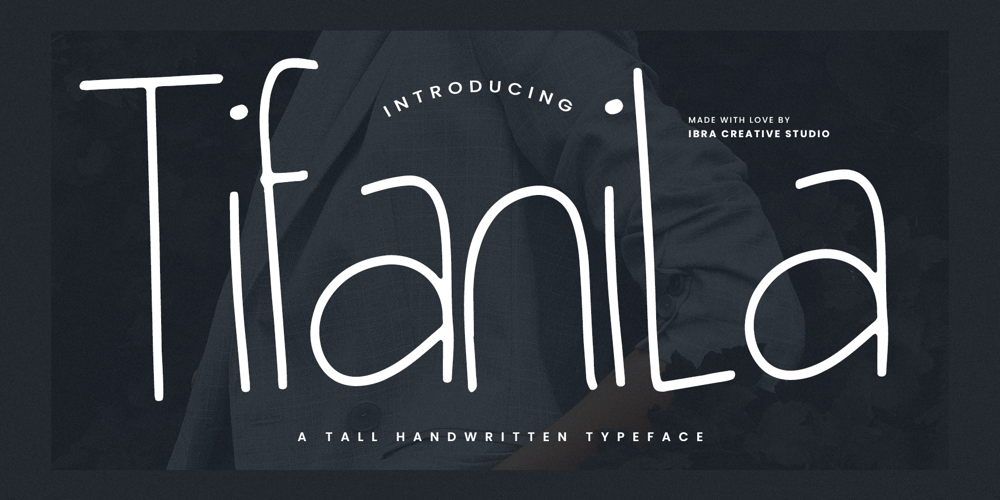
Tifanila Font Family was designed by Roisatul Azizah and published by IbraCreative. Tifanila contains 1 styles and family package options. Tifanila – A Tall Handwritten TypefaceTifanila, a striking tall handwritten typeface, stands as an epitome of elegance and vertical grace. Each letter in Tifanila stretches upward with a refined slenderness, evoking a sense of sophistication and modernity. The tall, meticulously crafted characters flow seamlessly, resembling the fluid strokes of a calligrapher’s pen. Tifanila introduces a harmonious blend of height and handwritten charm, making it a distinctive choice for projects that demand a touch of vertical poise. Whether used in headlines, invitations, or branding materials, Tifanila captivates with its tall, slender allure, adding an air of contemporary grace to any design endeavor. Elevate your typographic expression with Tifanila, where each towering letter carries an aesthetic finesse that transcends the ordinary. Tifanila is perfect for branding projects, logo, wedding designs, social media posts, advertisements, product packaging, product designs, label, photography, watermark, invitation, stationery, game, fashion and any projects.Fonts include multilingual support for; Afrikaans, Albanian, Czech, Danish, Dutch, English, Estonian, Finnish, French, German, Hungarian, Italian, Latvian, Lithuanian, Norwegian, Polish, Portuguese, Slovak, Slovenian, Spanish, Swedish.